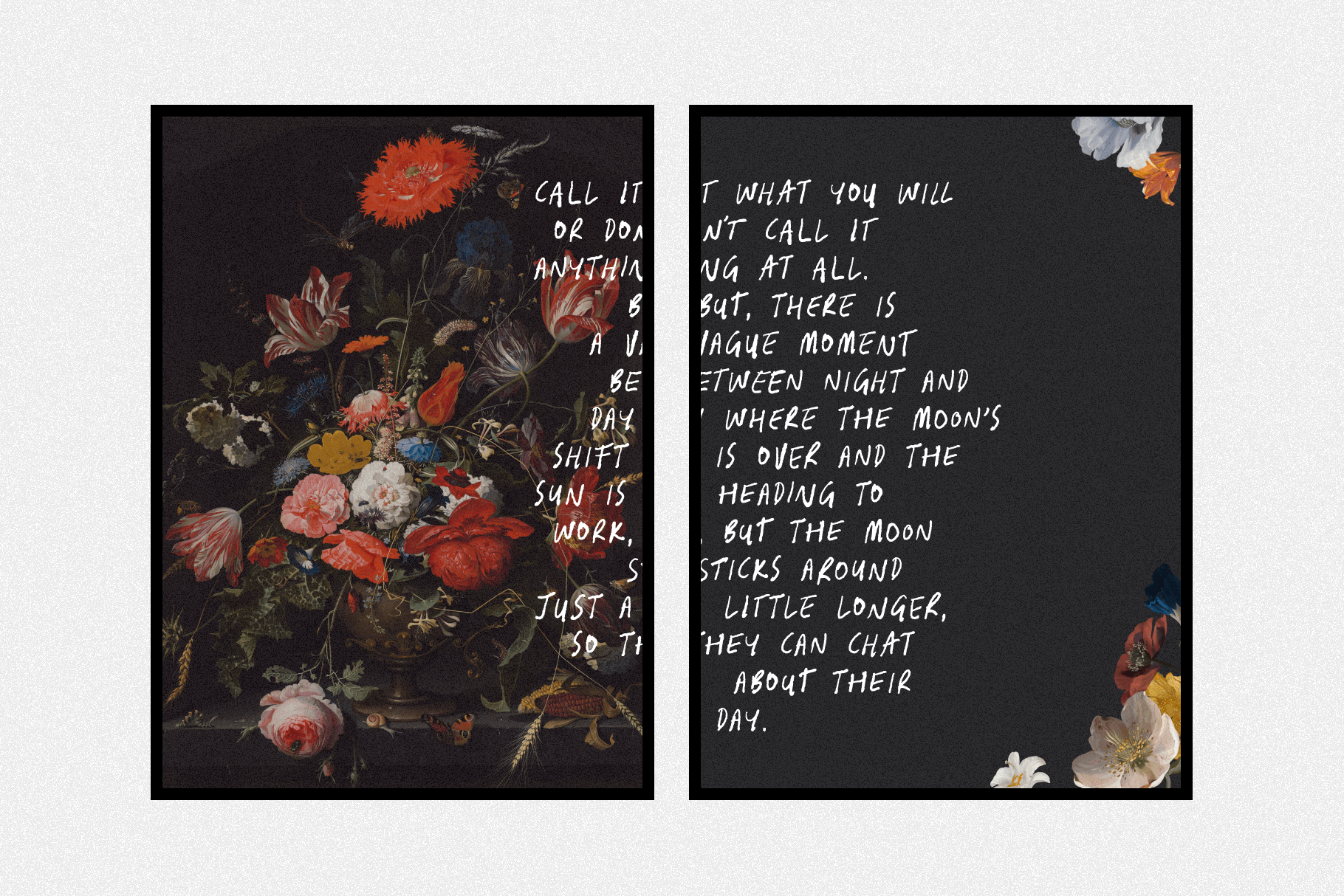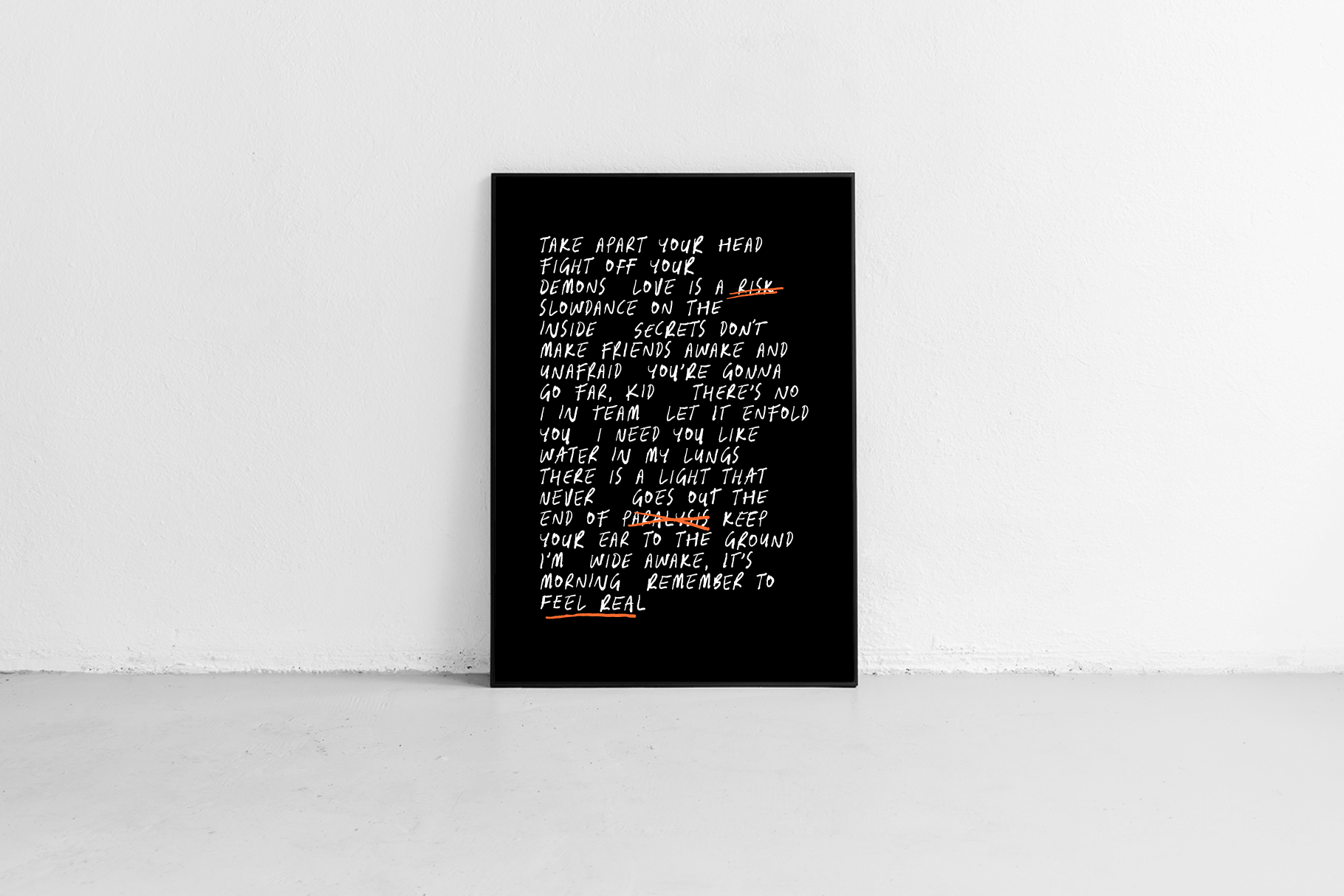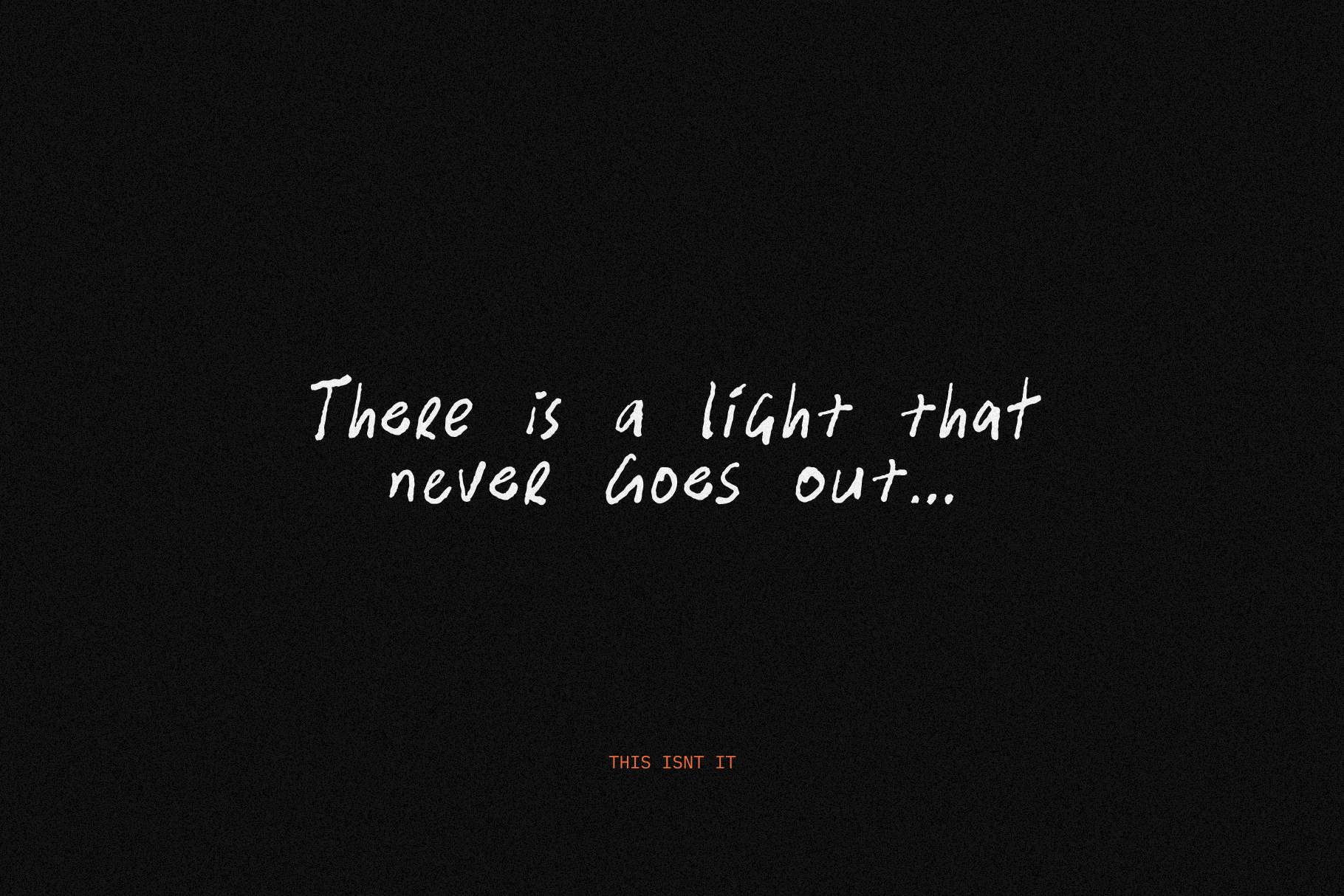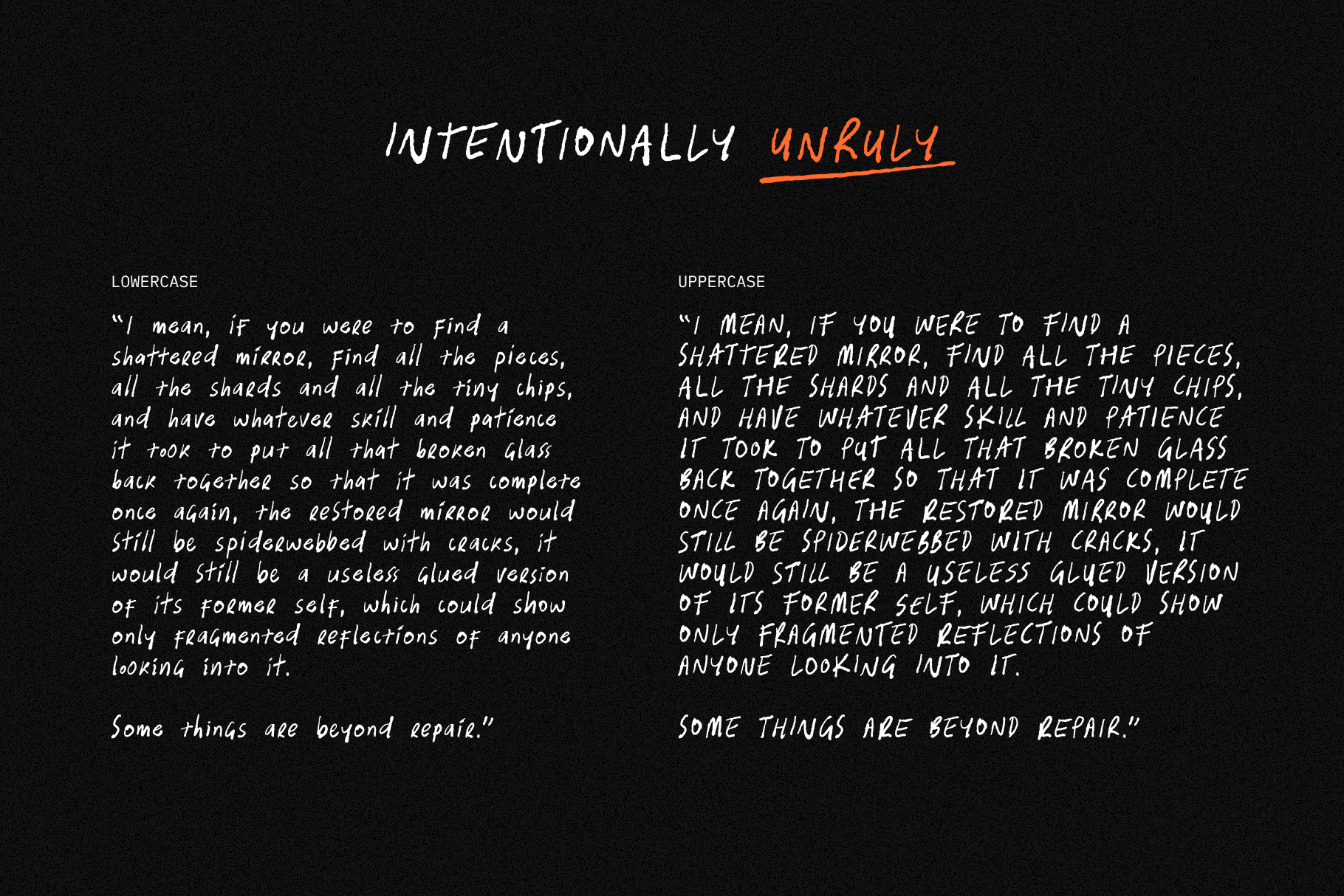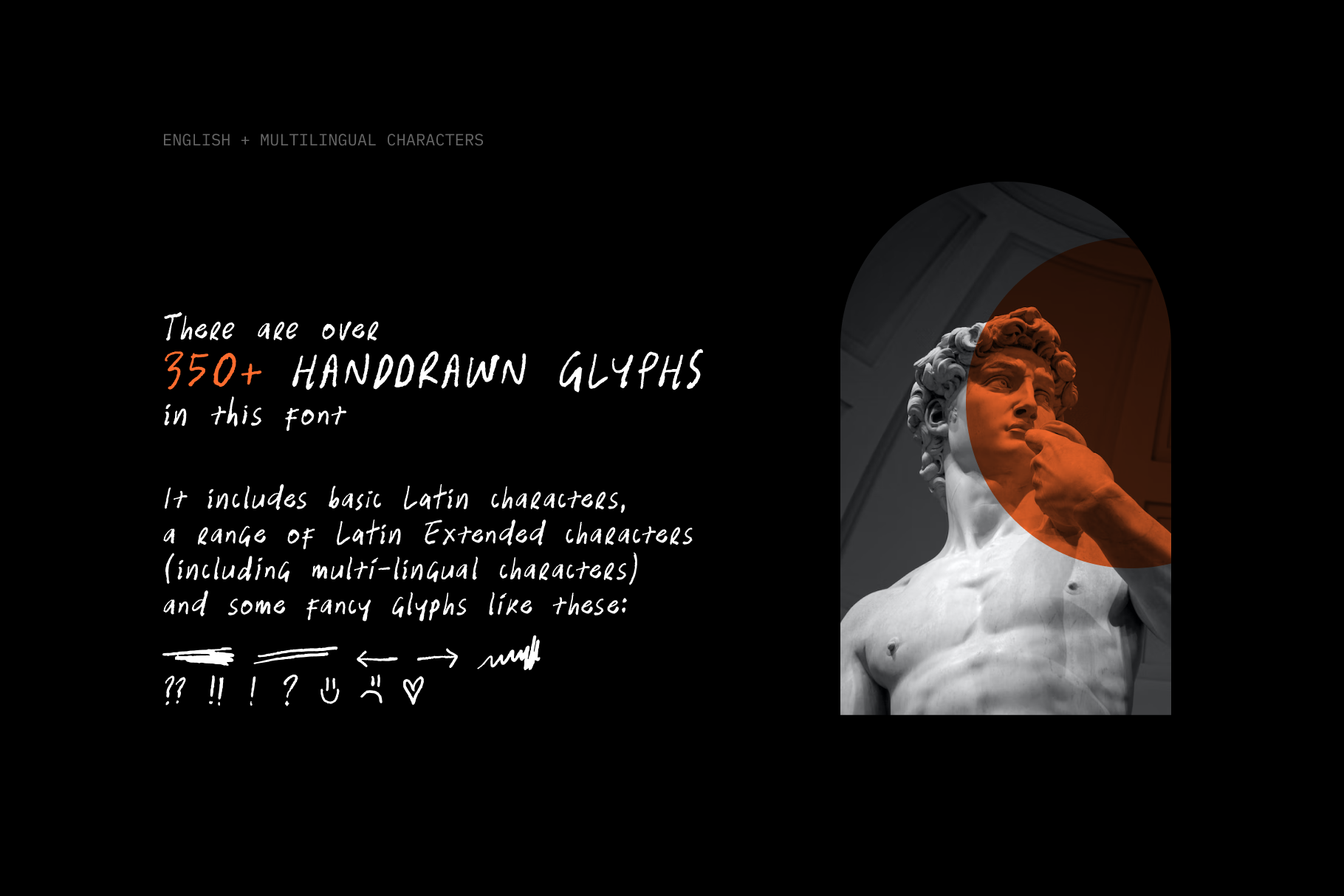
Infamous is a slightly italicised messy handwriting font. It’s rough, scratchy and has a unique textured edge. Perfect for adding a grunge or distressed handwritten look to posters, branding, packaging, or digital designs, Infamous captures the authenticity of real ink on paper.
This bold and expressive handwritten font includes uppercase and lowercase letters, multilingual support and over 100 custom ligatures for a natural handwritten flow.
There are over 360 unique glyphs in total in this typeface, including hand drawn scribble characters which are available by keyboard shortcuts (see images). These imperfect sketches complement the typeface perfectly, adding that extra personality to your projects.
An unruly, handwritten font that is rough, textured and slightly skewed. Infamous is irregular, confidently messy and undoubtably unique; how you utilise it is up to you.
Infamous is a tightly kerned typeface which looks great in lowercase, uppercase and every wild combination in-between.